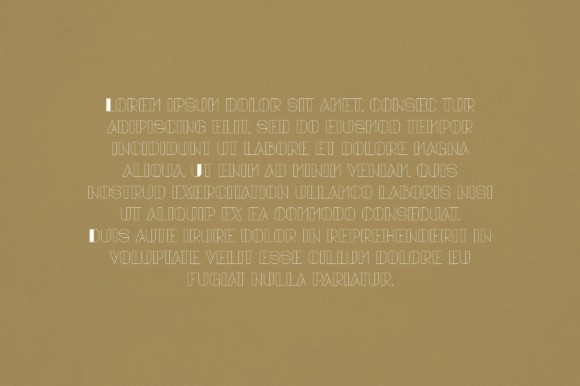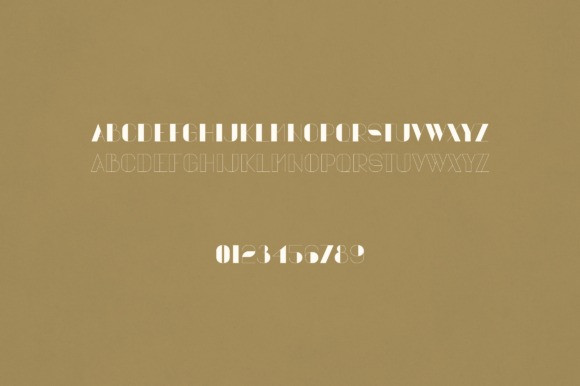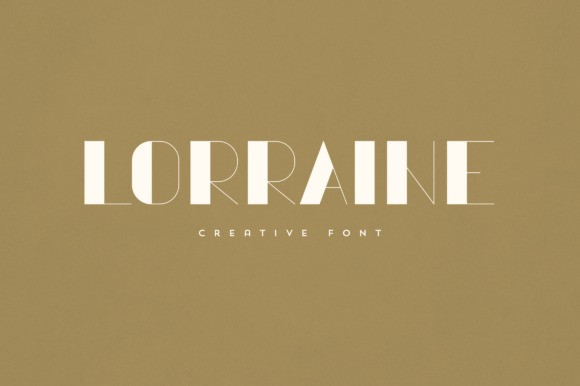
Lorraine Font
Lorraine Font is an elegant and versatile display font that will make your typography truly unique! It will enchant every logo, branding, headline, or plain text!